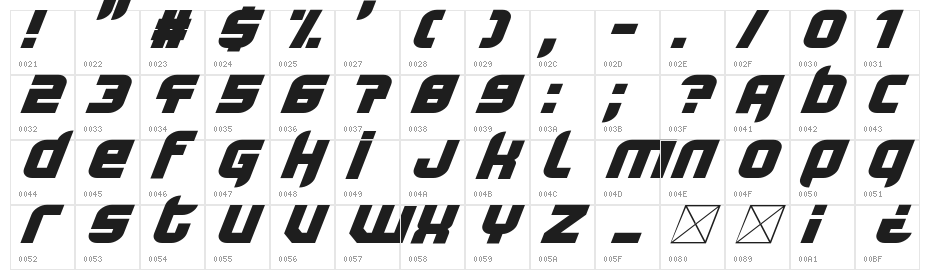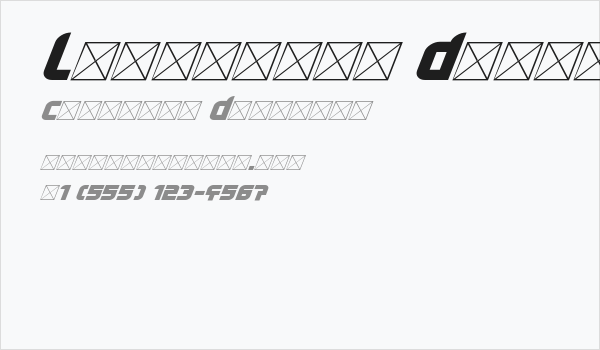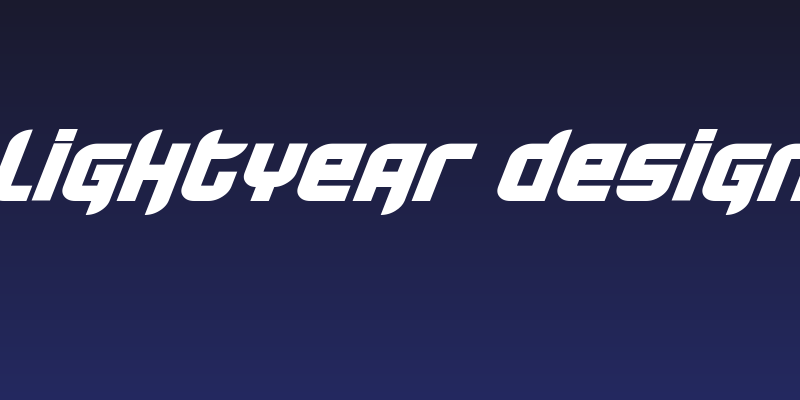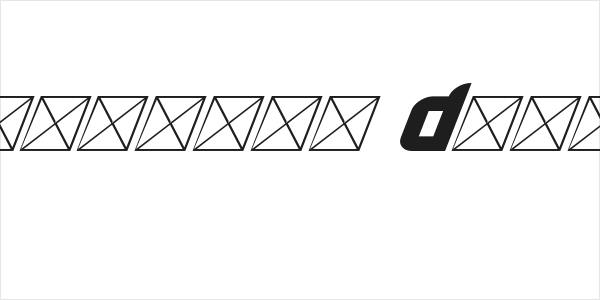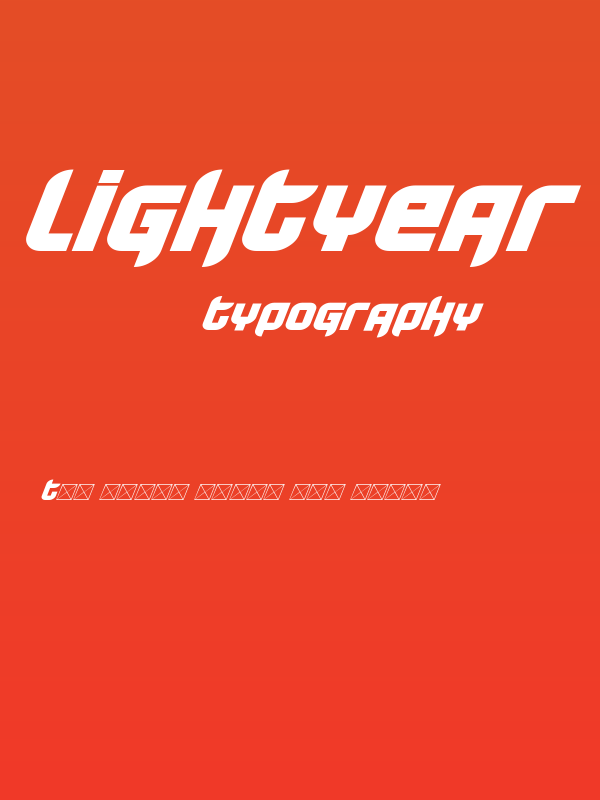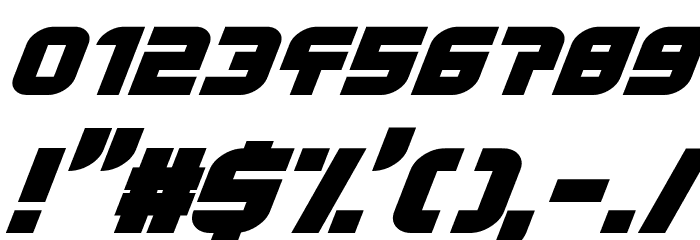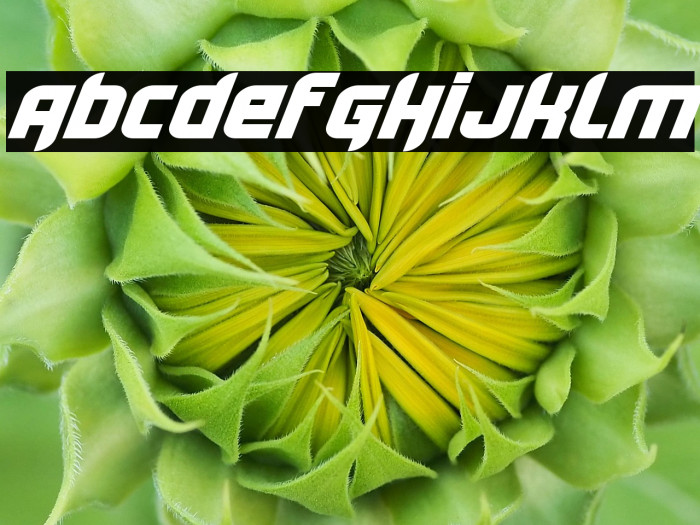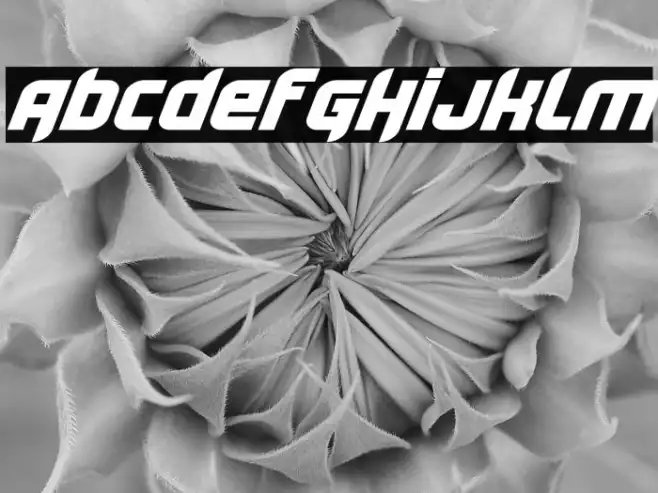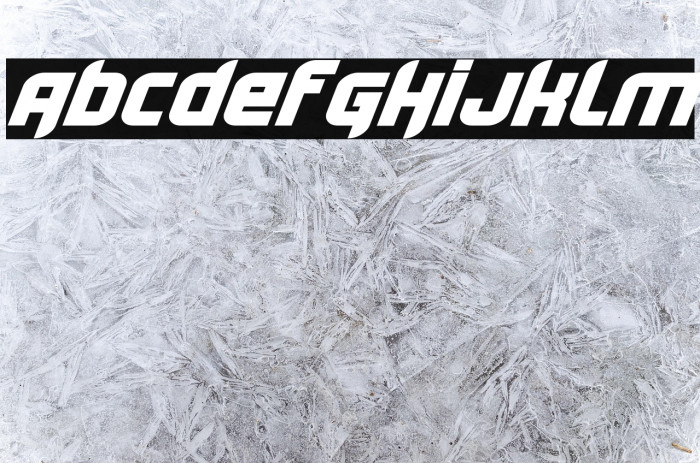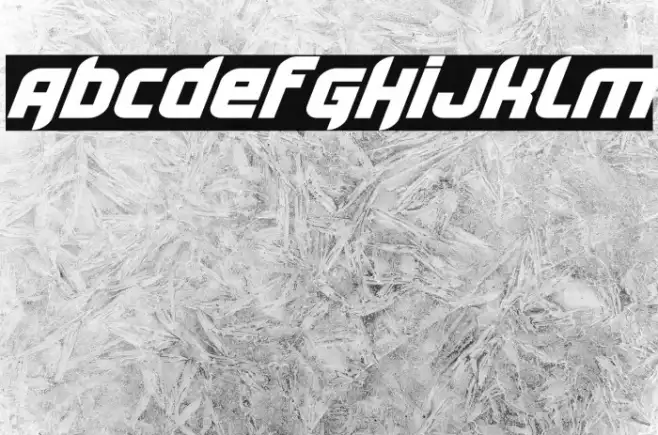
Lightyear Design Font
Lightyear Design Description
This font features a bold and futuristic design with a strong emphasis on angular shapes and sharp edges. The characters are slightly slanted, giving a sense of motion and speed. The uppercase and lowercase letters maintain a consistent style, with a uniform width that enhances readability. The numbers and special characters follow the same design principles, ensuring a cohesive look across all elements. The font's boldness and unique style make it ideal for attention-grabbing headlines and modern design projects.
| Proposed Projects | Ideal for sci-fi themed designs, technology branding, video game titles, and dynamic posters. |